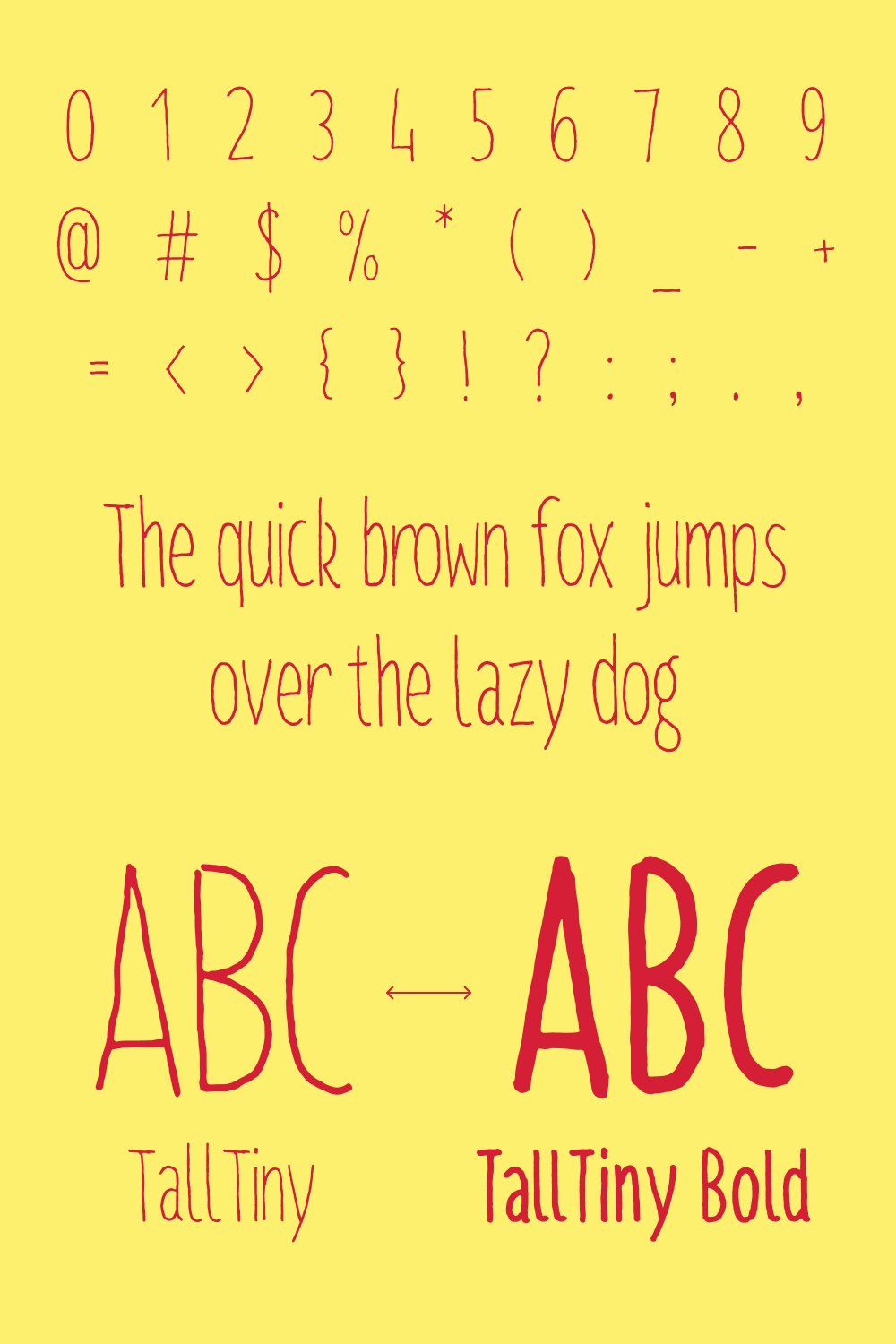
Free Tall Tiny Font Description
Free Tall Tiny Font is a modern uppercase font inspired by contemporary design and is most suited as a decorative display font.
Free Tall Tiny Font Previews